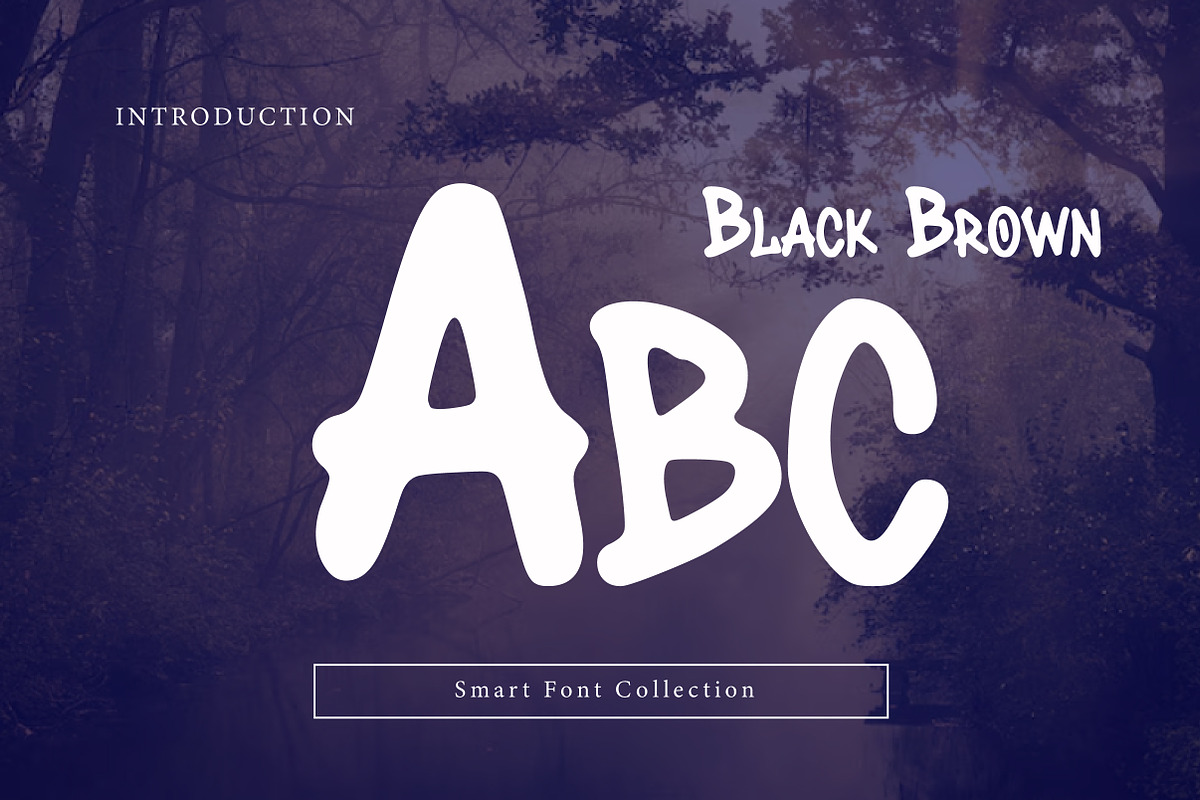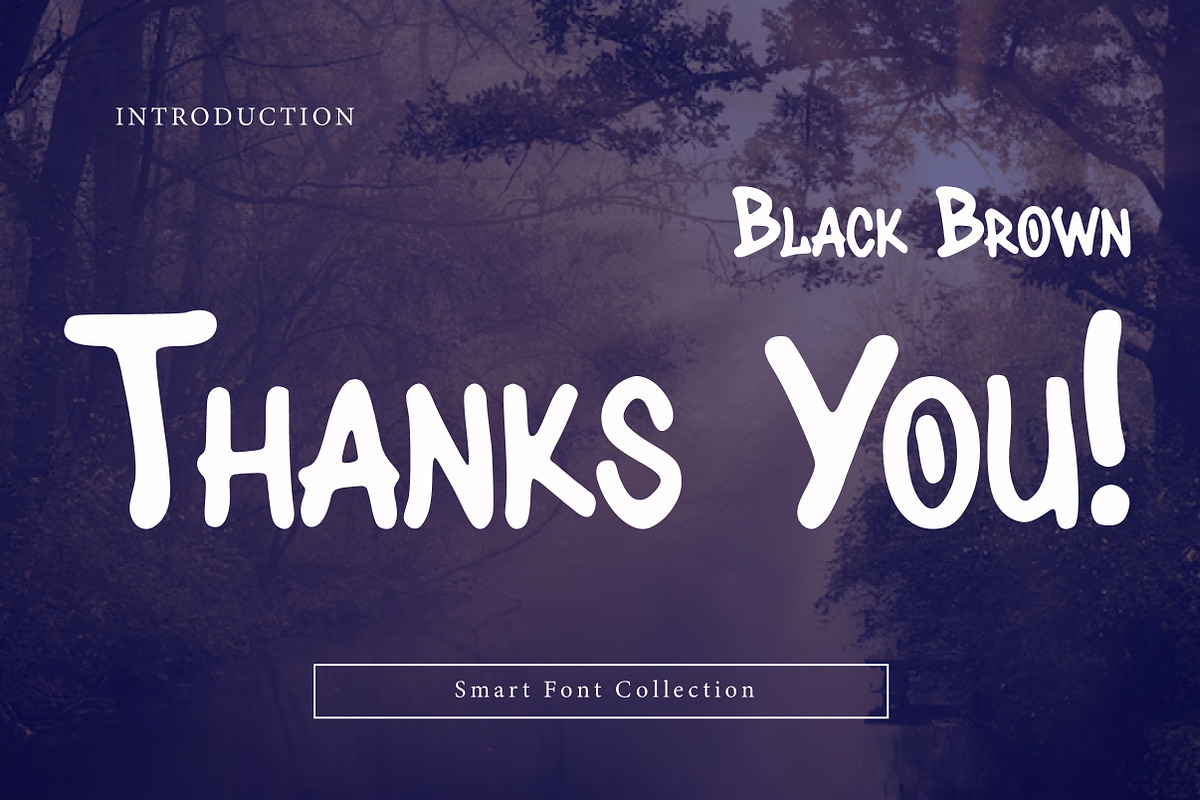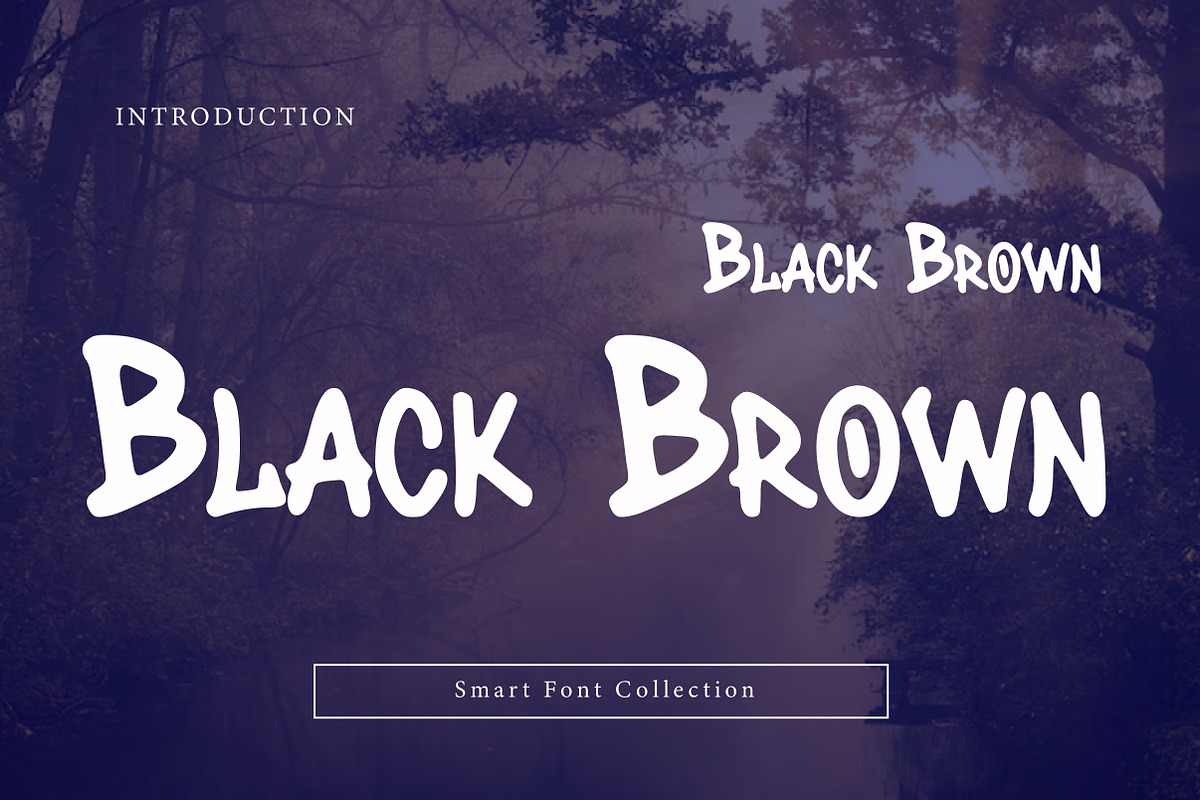
Black Brown
Black Brown is a bold, casual handwritten display font with a raw marker/brush feel and energetic strokes. Its slightly rough edges and natural uneven rhythm give it an authentic, human personality—perfect for street-style branding, posters, packaging, logos, quotes, stickers, social media graphics, and merchandise. Black Brown brings a confident, urban vibe that feels both playful and strong, making your typography look handmade, modern, and full of attitude.